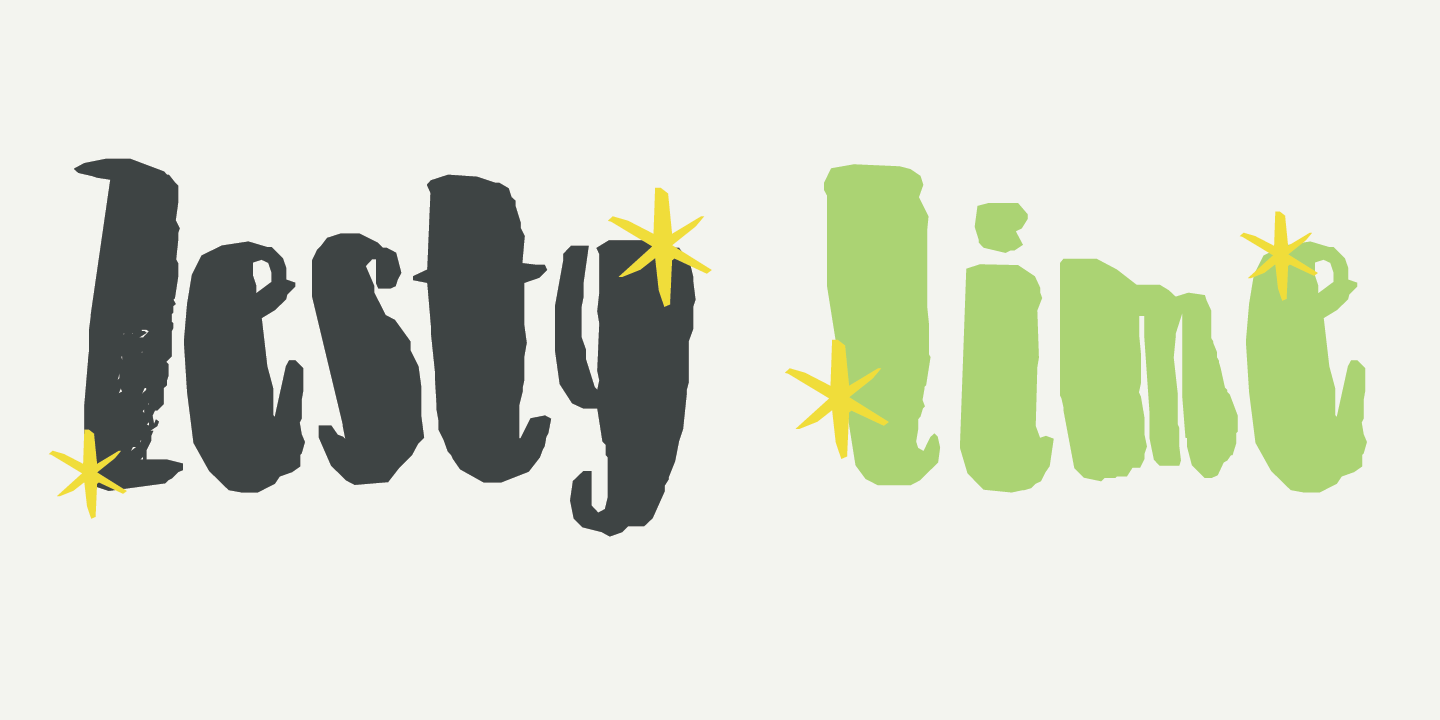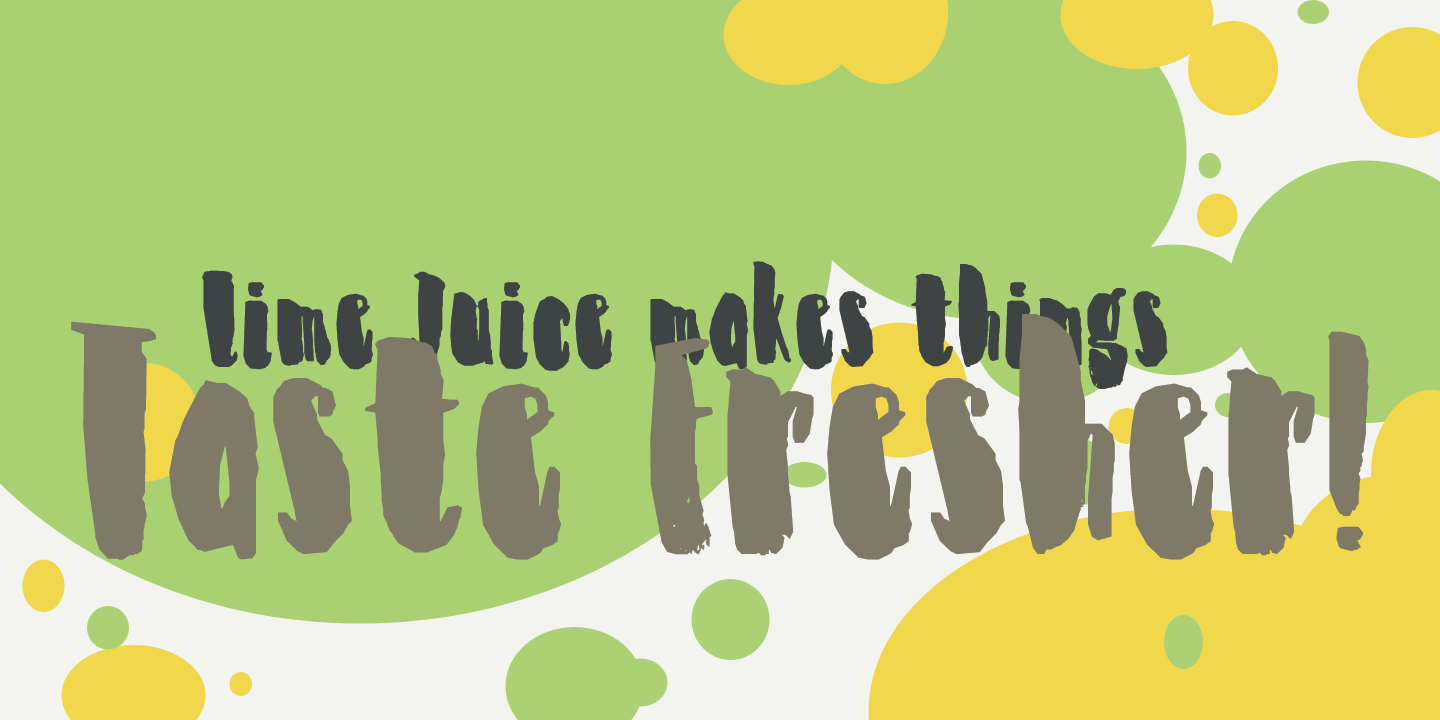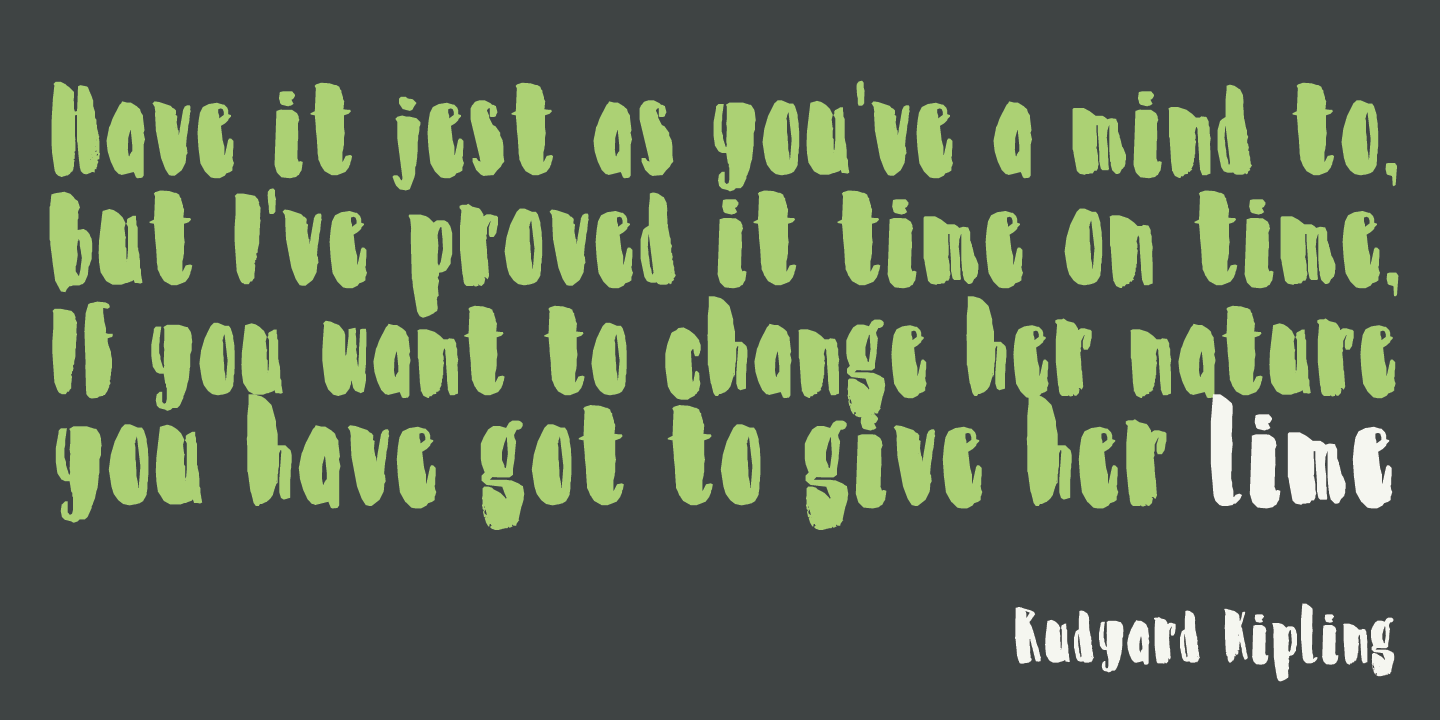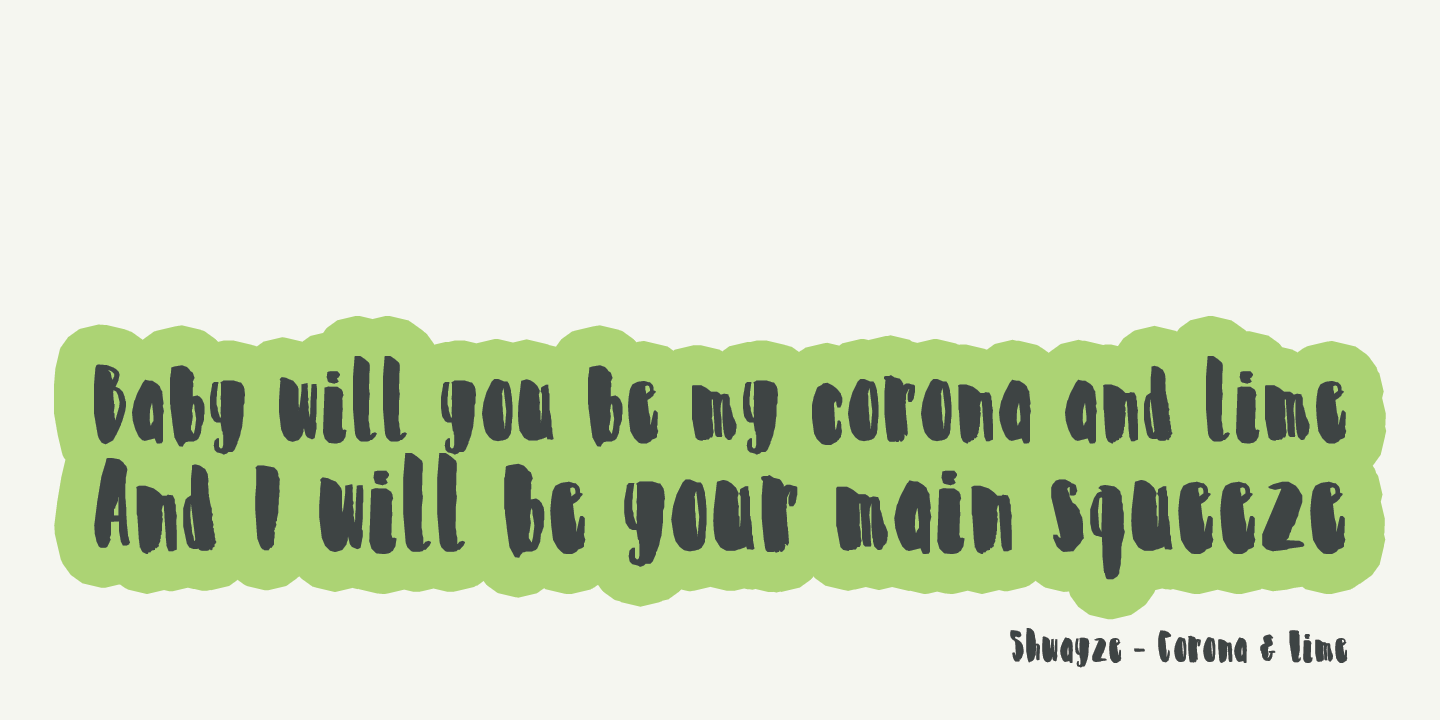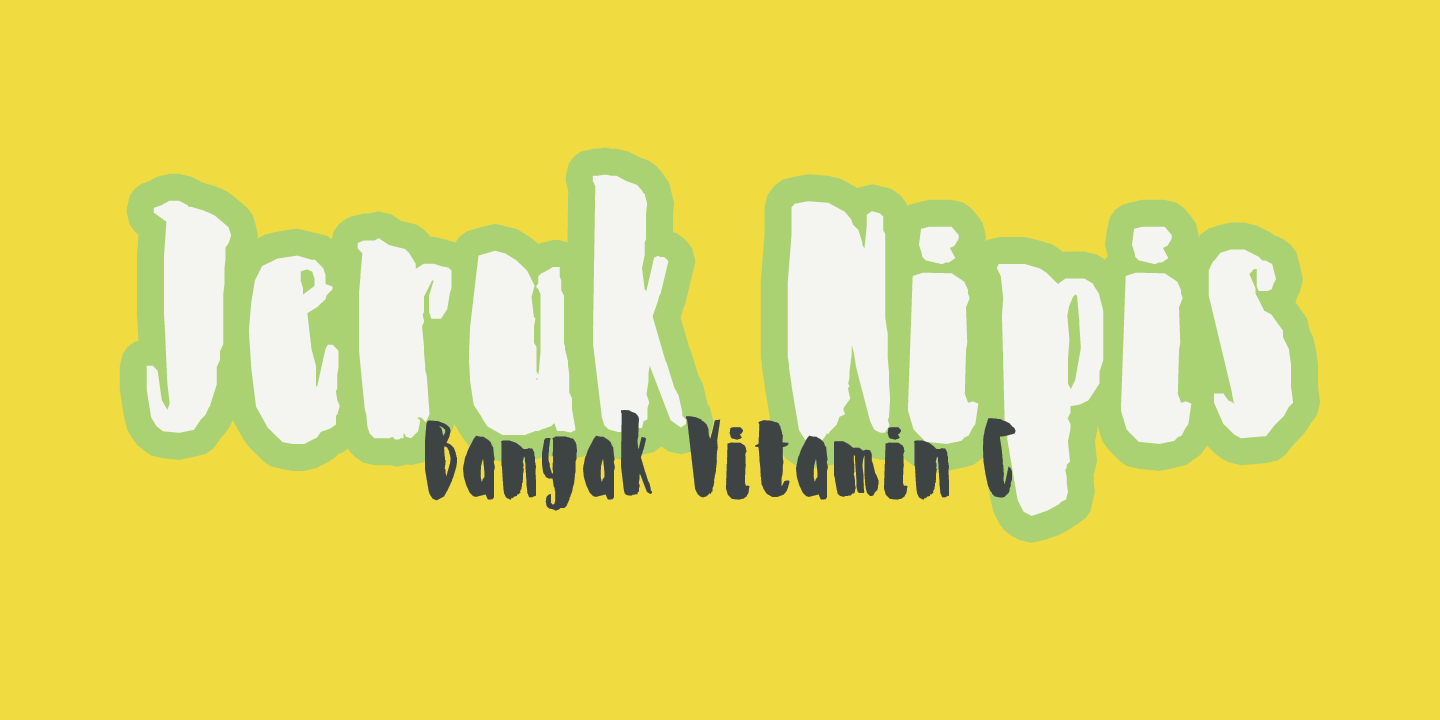
Zesty Lime
Zesty Lime is a condensed typeface, hand made with a small brush and China ink. Zesty would look good on book covers, posters and packaging - but I guess you're not limited to those three options. Just enjoy!
Comes with a generous squeeze of diacritics.
Zesty Lime by Hanoded